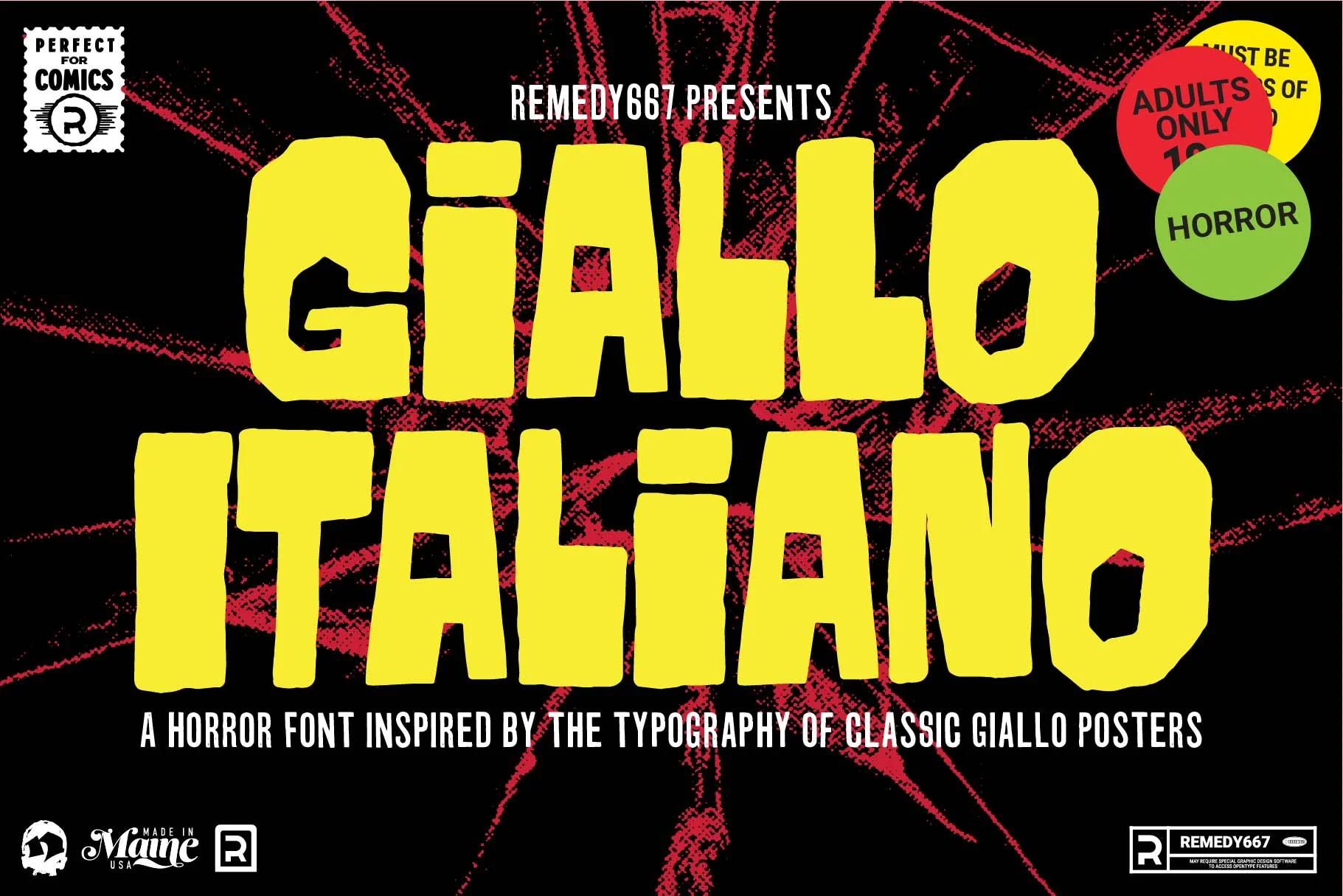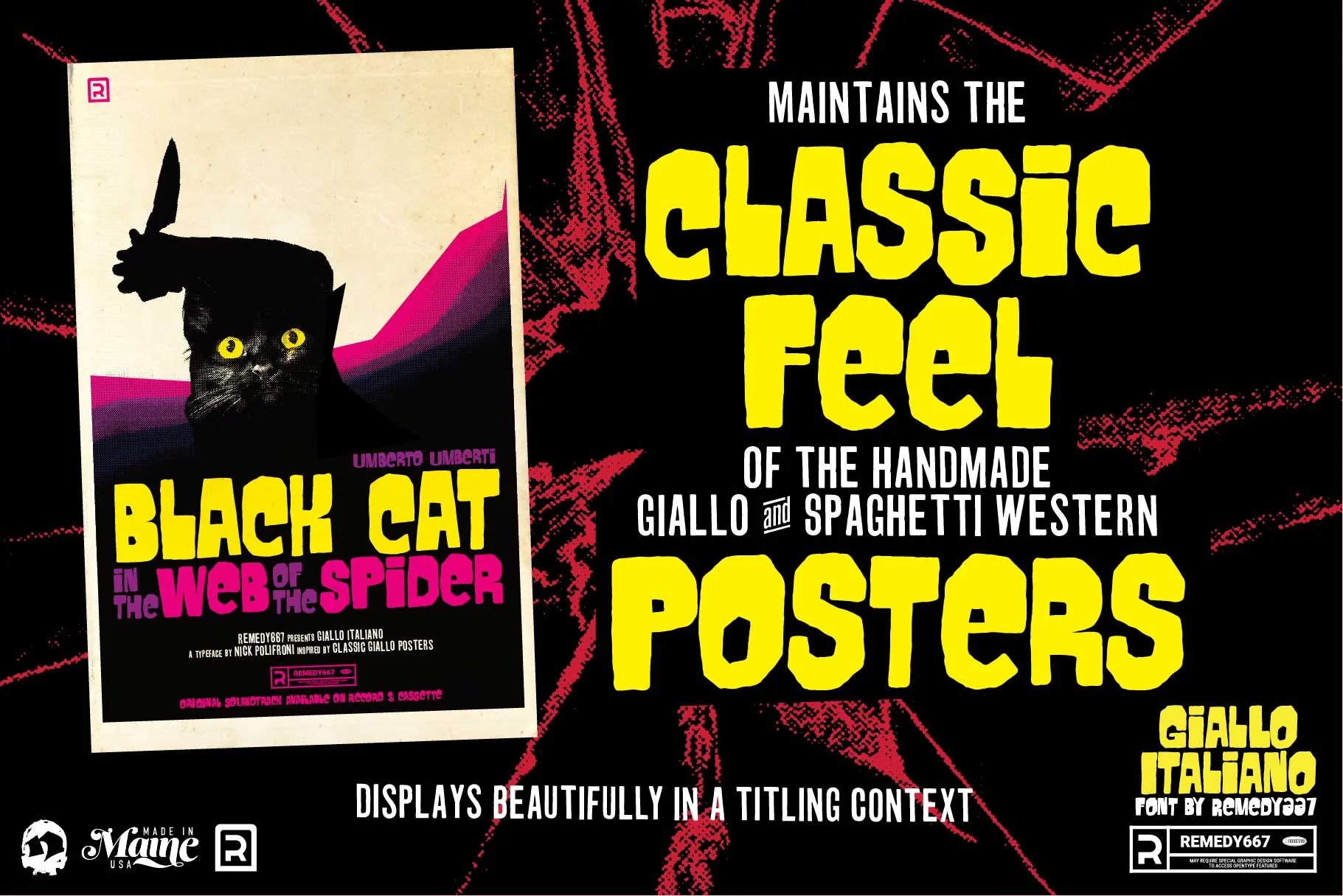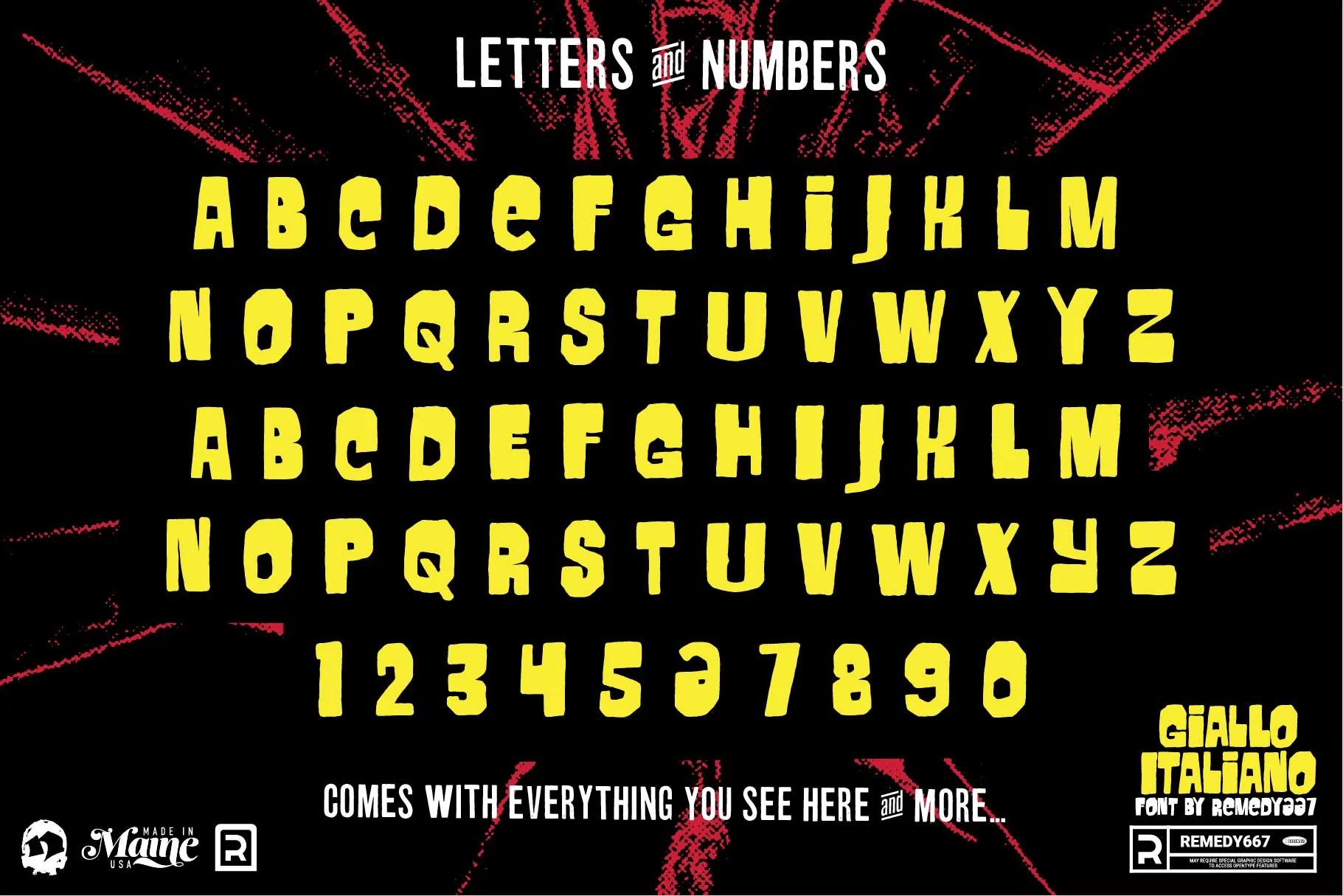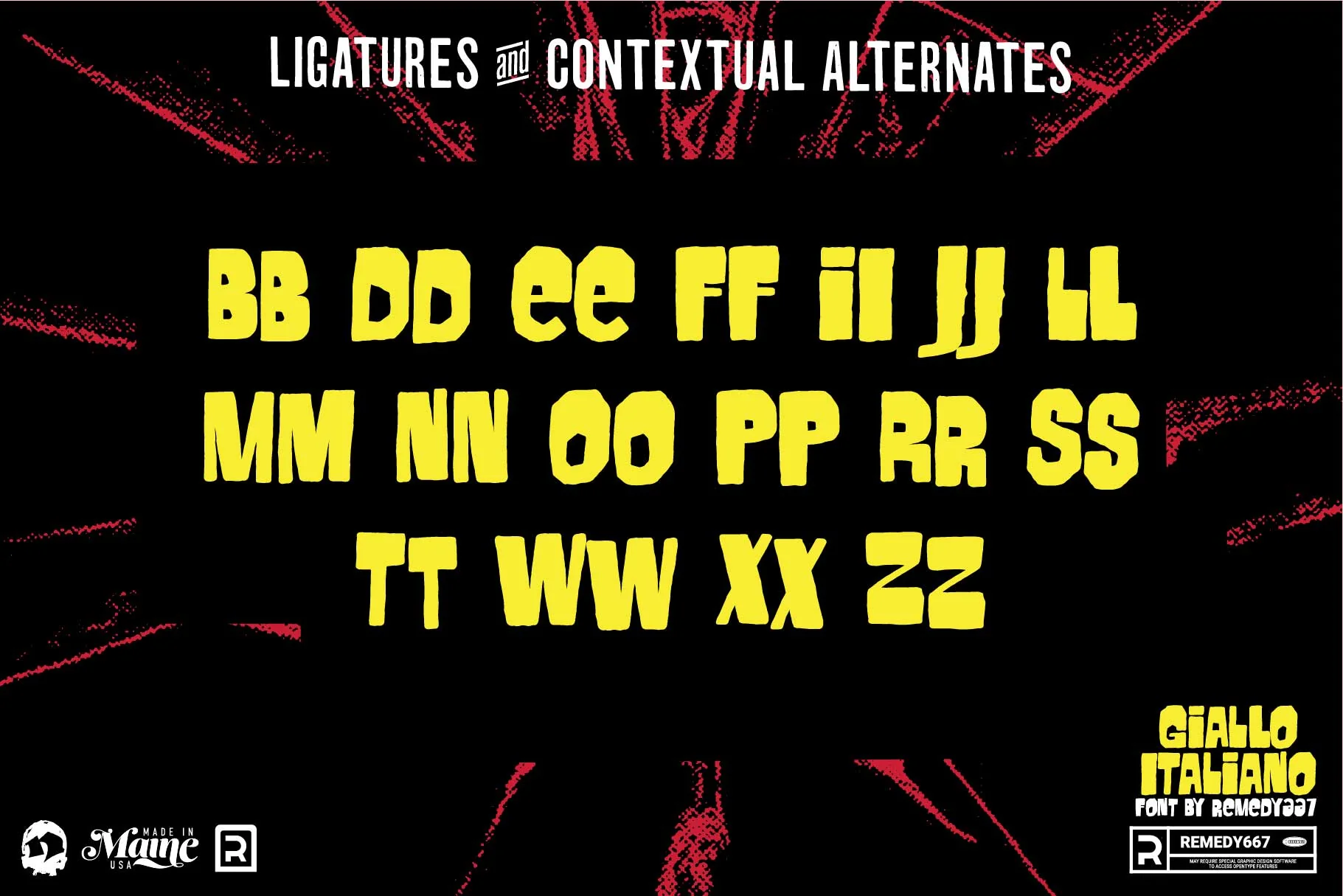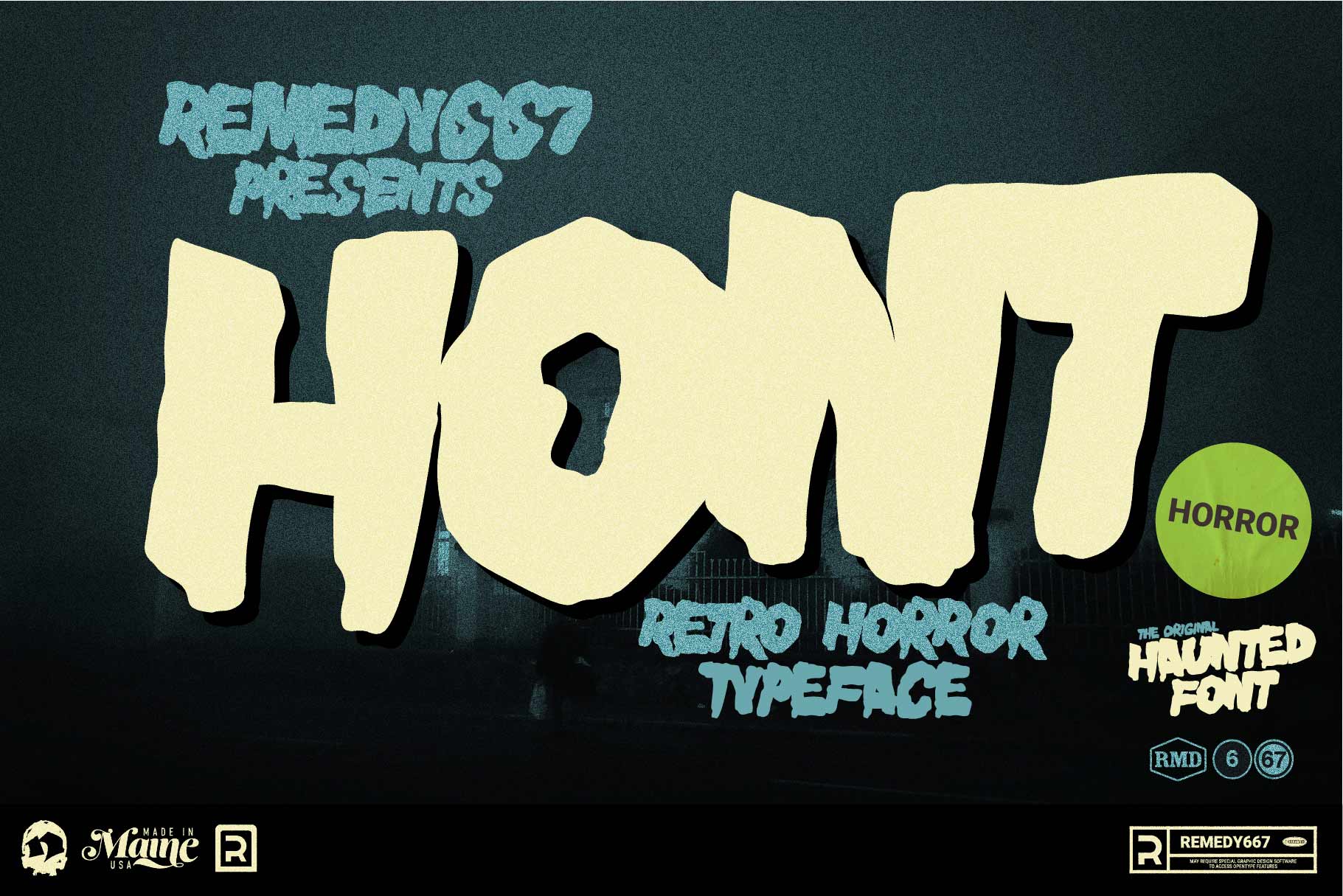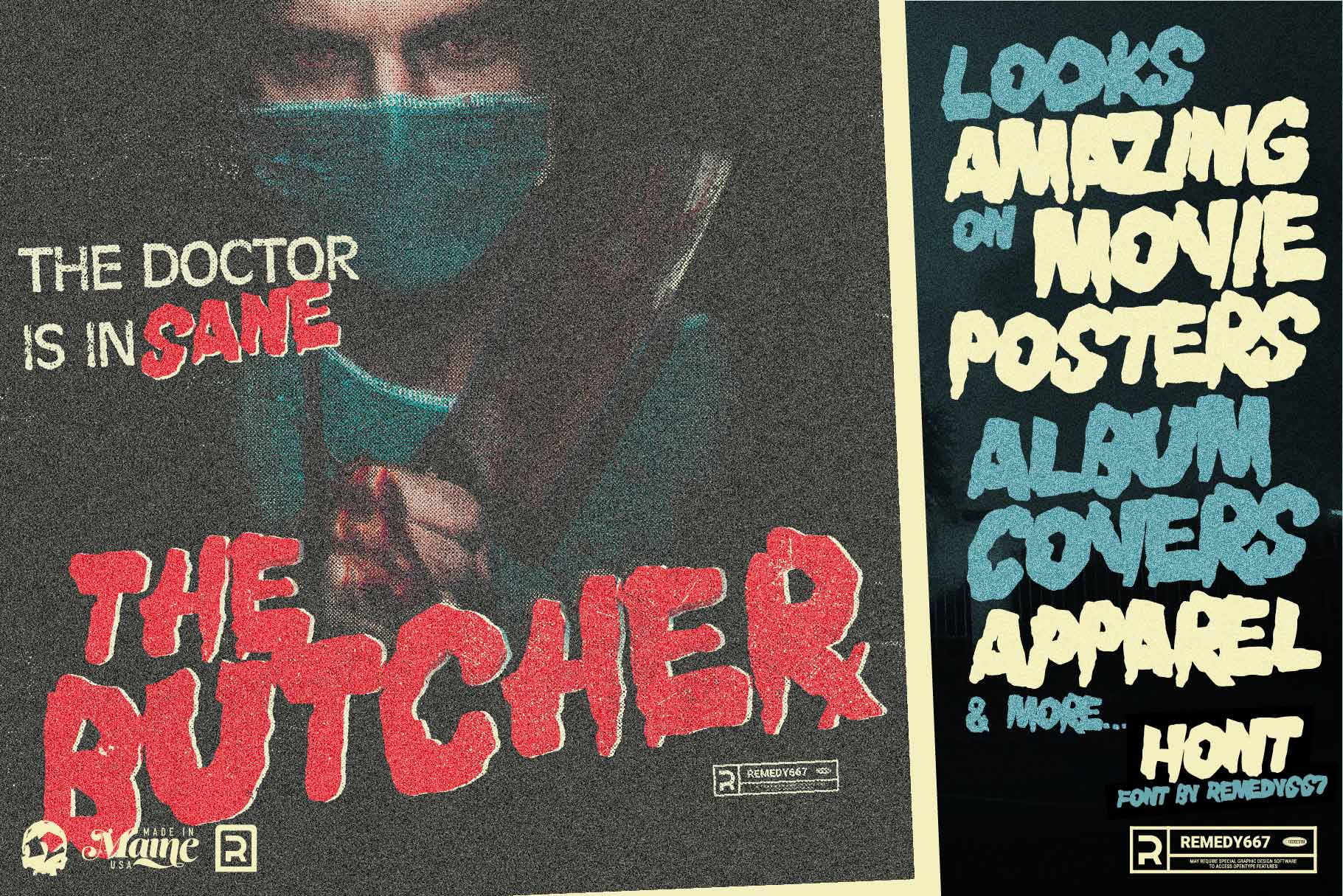
The Splatter House Font Bundle
A Chilling Font Collection That Pays Homage to Classic Horror Typography
Drawing inspiration from the raw, unfiltered essence of 20th-century slasher films and the underground world of grindhouse cinema, this bundle brings to life the pulse-pounding suspense and heart-racing fear synonymous with the genre.
Crafted with precision by Remedy 667, specialists in horror and sci-fi typography, each font in this bundle drips with character and authenticity.
Key Features
- Extensive Horror Font Selection. Dive into a collection of 7 uniquely terrifying fonts to hit on a wide spectrum of styles and tones. As an added treat, an exclusive new font, Son of Mothman, only available in the Splatter House.
- Versatile Use Cases. Perfectly pitched for horror-themed projects. Think horror comics, eerie movie posters, spooky packaging, or any design that craves a spine-tingling touch.Â